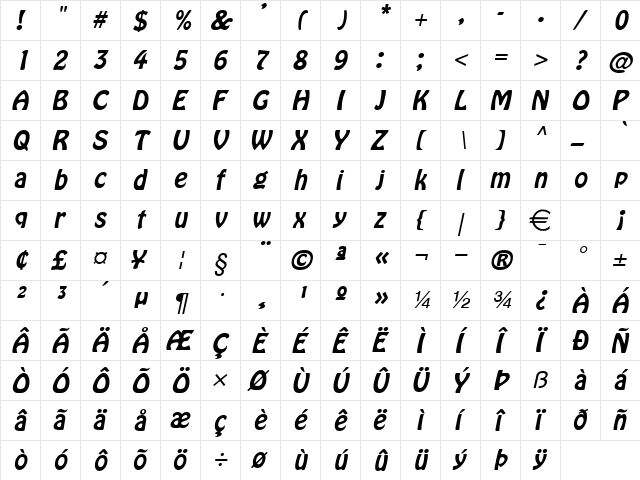
Bobo Italic
Design Context for Bobo Typeface
Bobo is a composed and adaptable typeface that performs quietly and consistently across a wide range of design contexts. The dynamic lean of this cut emphasises speed and emphasis in any layout.
Pro Tip: Use Bobo for emphasis, pull quotes, and subheadings where its slanted energy can add rhythm to the layout.